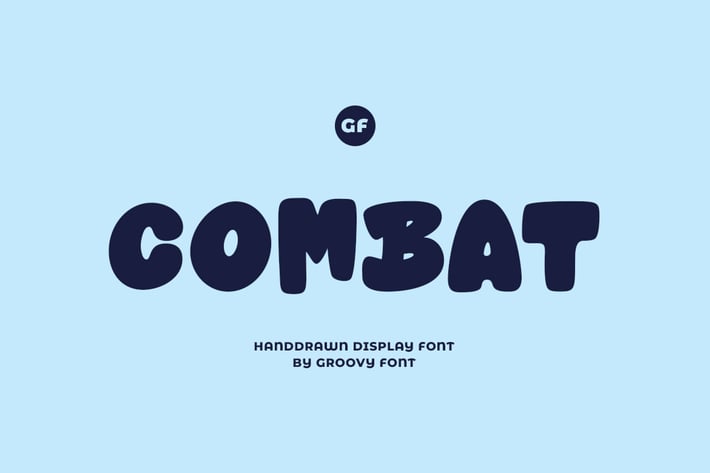
Combat - Handdrawn Display Font
GF Combat by Groovy Font
GF Combat is a hand-drawn display font that features a bold and impactful design. It is perfect for creating eye-catching headlines, posters, and other designs that require a unique and edgy look.